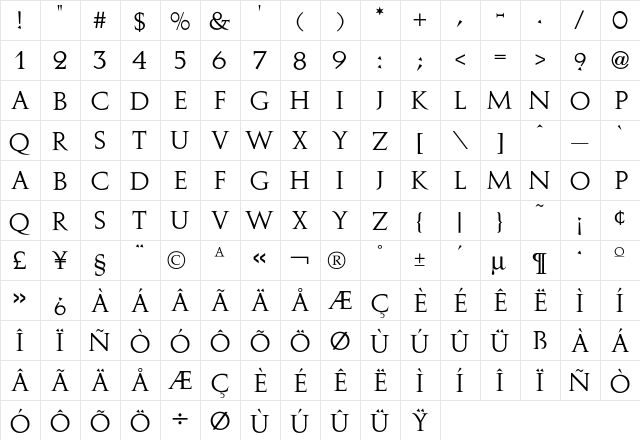
Aurea Titling Font Preview
Aurea Titling
| Style | Titling |
Design Context for Aurea Typeface
Aurea is a composed and adaptable typeface that performs quietly and consistently across a wide range of design contexts.